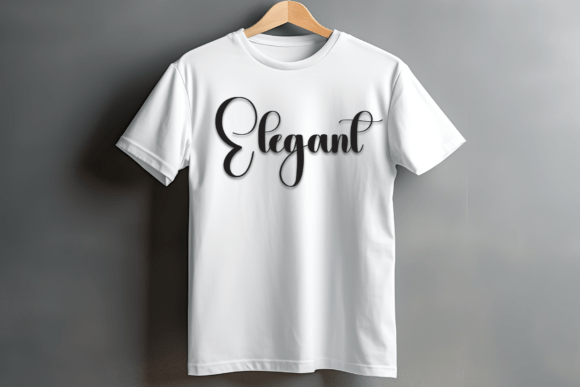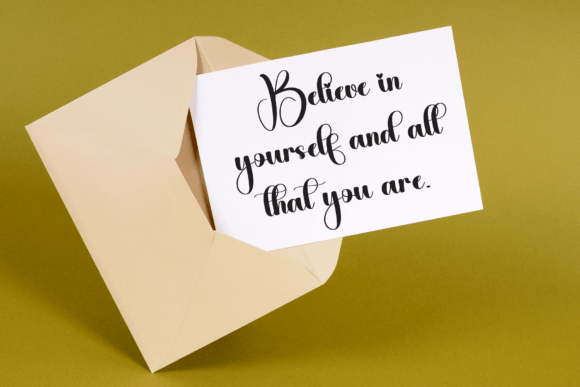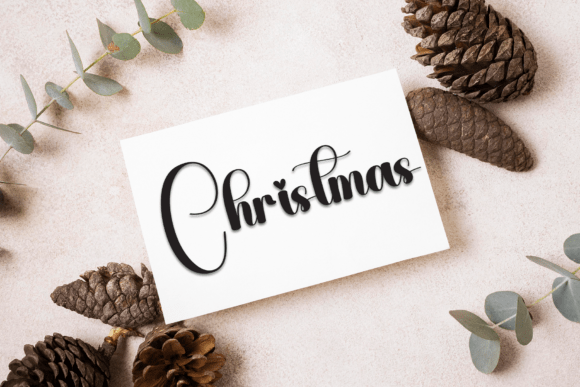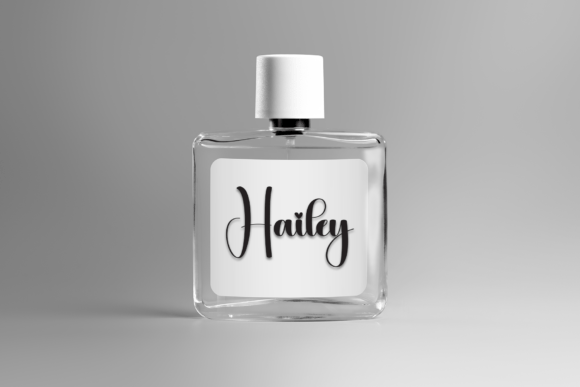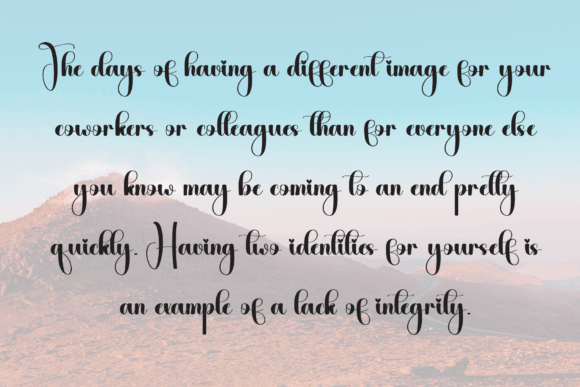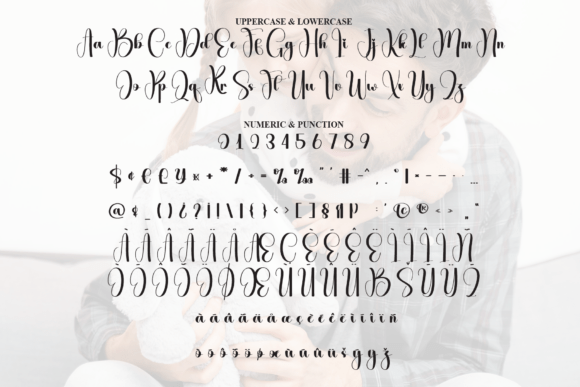
Introducing Father Font: Elevate Your Designs with Artistic Flair and Contemporary Elegance
In the world of typography, few fonts manage to strike a balance between artistic expression and modern sophistication. Father Font is one such exceptional typeface that brings together the fluidity of brush strokes, the dynamism of curves, and the expressiveness of letterforms to create a truly unique and captivating script font. Whether you’re a designer looking to elevate your branding, a crafter seeking to add a personal touch to your projects, or a social media enthusiast aiming to make your graphics stand out, Father Font is the perfect choice.
The Essence of Hand-Painted Calligraphy with a Modern Twist
Father Font draws its inspiration from the elegant world of hand-painted calligraphy but infuses it with a contemporary twist. This results in a font that feels both timeless and refreshingly modern. The fluid brush strokes that characterize this font give it a natural, hand-crafted feel that can add warmth and personality to any design. At the same time, its dynamic curves and expressive letterforms ensure that it remains stylish and on-trend.
Ideal for a Variety of Design Projects
One of the key advantages of Father Font is its versatility. Its distinctive yet adaptable nature makes it suitable for a wide range of design applications. Here are some of the areas where Father Font can truly shine:
- Logos: For businesses looking to establish a strong brand identity, Father Font offers a stylish and memorable solution. Its unique character can help your logo stand out and convey a sense of creativity and sophistication.
- Invitations: Whether you’re planning a wedding, a birthday party, or any other special event, Father Font can add an elegant and personal touch to your invitations, setting the tone for a memorable occasion.
- Packaging: In the competitive world of product packaging, standing out on the shelves is crucial. Father Font can help your product packaging design capture attention and convey a sense of luxury and quality.
- Social Media Graphics: For social media enthusiasts and marketers, Father Font offers a way to create engaging and visually appealing graphics that can help increase engagement and grow your online presence.
Adding a Creative and Sophisticated Touch
Father Font’s ability to add a creative and sophisticated touch to any design is one of its most compelling features. Its natural flow and vibrant character ensure that your designs not only look great but also tell a story. In a digital landscape where standing out is more challenging than ever, having a font that can deliver both visual impact and versatility is invaluable.
Why Choose Father Font?
With so many fonts available to designers and crafters today, what sets Father Font apart? Here are a few reasons why Father Font should be at the top of your list:
- Unique Artistic Flair: Its brush strokes and dynamic curves give it a one-of-a-kind look that can elevate your designs.
- Contemporary Elegance: Perfect for designers looking for a modern yet sophisticated typeface.
- Versatility: Suitable for a wide range of design projects, from logos and invitations to packaging and social media graphics.
- Easy to Use: Designed to be user-friendly, making it easy to incorporate into your projects.
Father Font is more than just a script font; it’s a tool for creativity and self-expression. Its unique blend of artistic flair and contemporary elegance makes it an invaluable asset for designers and crafters looking to make their mark. Whether you’re aiming to create stunning logos, elegant invitations, captivating packaging, or engaging social media graphics, Father Font offers the perfect combination of style, versatility, and impact. Make your designs stand out with Father Font and discover a world of creative possibilities.